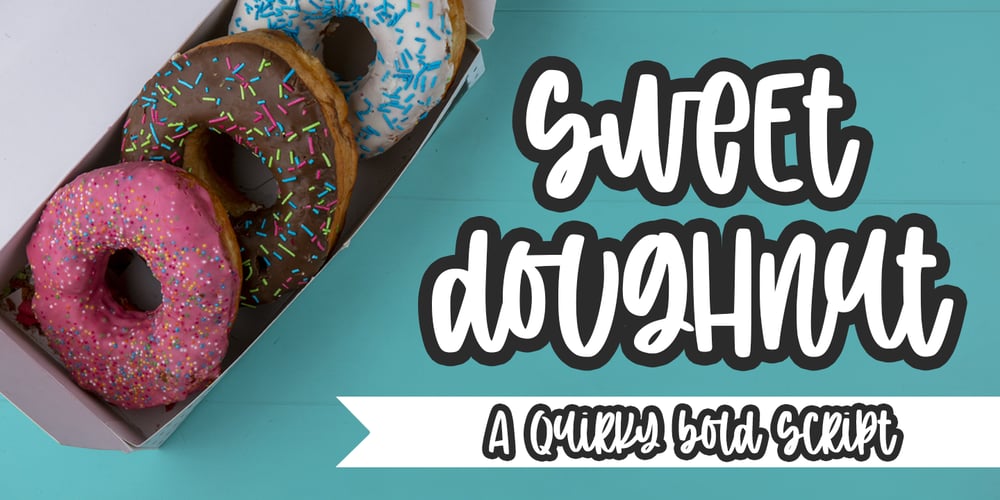
Sweet doughnut Font Family was designed by Abo Daniel and published by Abo Daniel. Sweet doughnut contains 1 styles and family package options. This font is so cute. Came with bold style, it is very eye catching.It is great for quotes, logo, branding, packaging, t shirt design, tote bag design, cutting, vinyl, silhouette, social media and another your craft project.Both uppercase and lowercase are match perfectly. You can combined them as you like.Features: Uppercase Lowercase Number & Punctuations International Accent PUA Encoded Hope you love itGrab it fast…